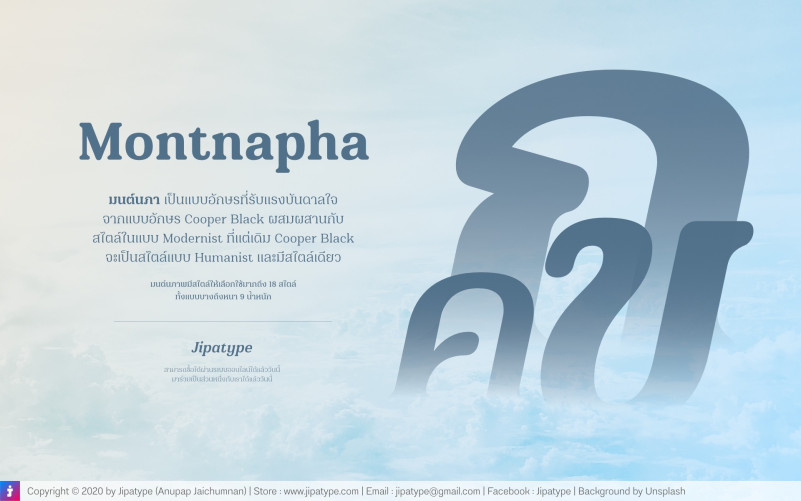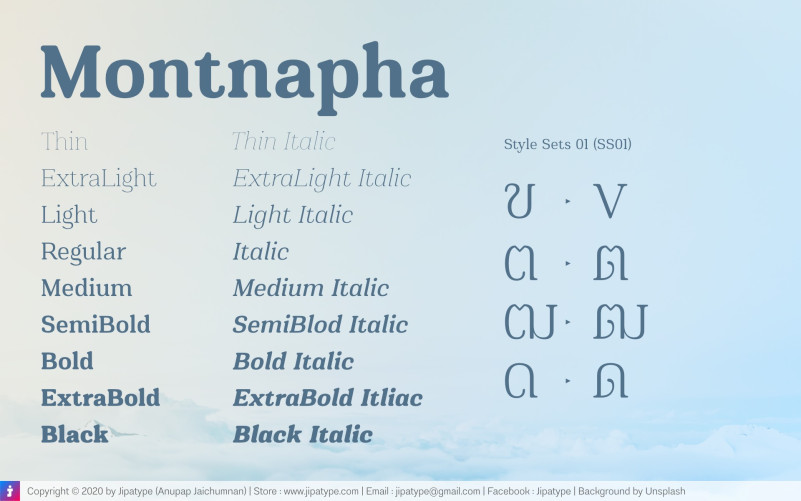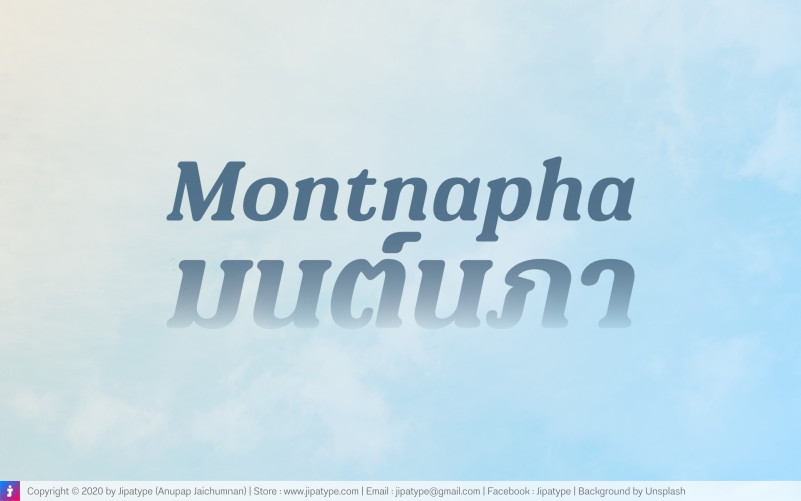
Montnapha Font
Montnapha Serif Font, It can easily be matched to an incredibly large set of projects, so add it to your creative ideas and notice how it makes them stand out!